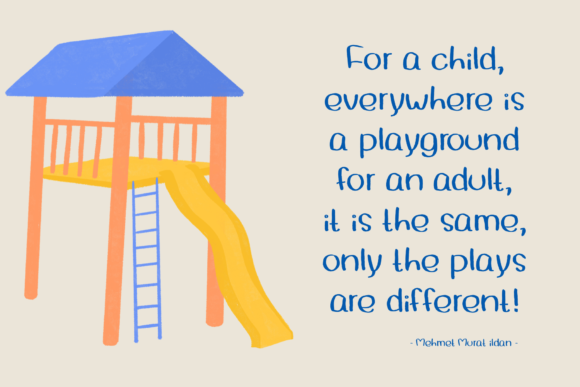
Introduction to PlaygroundNW Font
Do you remember the joy of creating with crayons and markers as a child? The freedom to express yourself through art without a care in the world. As designers, we often look for ways to tap into that same sense of creativity and whimsy in our projects. That’s where the PlaygroundNW Font comes in – a delightful, handwritten font that’s perfect for bringing a touch of childhood magic to your designs.
Whether you’re working on a school project, creating a craft for kids, or simply looking for a unique design element, the PlaygroundNW Font is a valuable resource. Its transparent background and high-quality design make it easy to integrate into any project, and the fact that it’s available for free download means you can experiment without breaking the bank.
- Designed with a modern and playful aesthetic, perfect for adding a touch of whimsy to your creative project
Honest Review: PlaygroundNW Font
I recently had the opportunity to work with the PlaygroundNW Font and I must say, it’s been a game-changer for my creative project. This font is a great design resource that can add a unique touch to any visual project.
What works well is the high quality of the font, it’s clear and readable even at smaller sizes. The font also offers a transparent background, which makes it perfect for overlaying on images or videos. I’ve used it for a few projects and the results have been amazing.
Overall, I’m really impressed with the PlaygroundNW Font and I would definitely recommend it to anyone looking for a high-quality design resource. The free download is a huge bonus and the transparent background makes it perfect for creative projects. While there are a few limitations, I think it’s well worth the download. ✨
The PlaygroundNW Font is a high-quality design resource available for free download, making it an ideal addition to any creative project. Its unique characteristics, such as a transparent background, allow for seamless integration into various design elements.
The PlaygroundNW Font is ideal for a variety of creative projects, including branding, marketing materials, and digital designs. Its high-quality design and transparent background make it a versatile resource for any design professional or enthusiast.